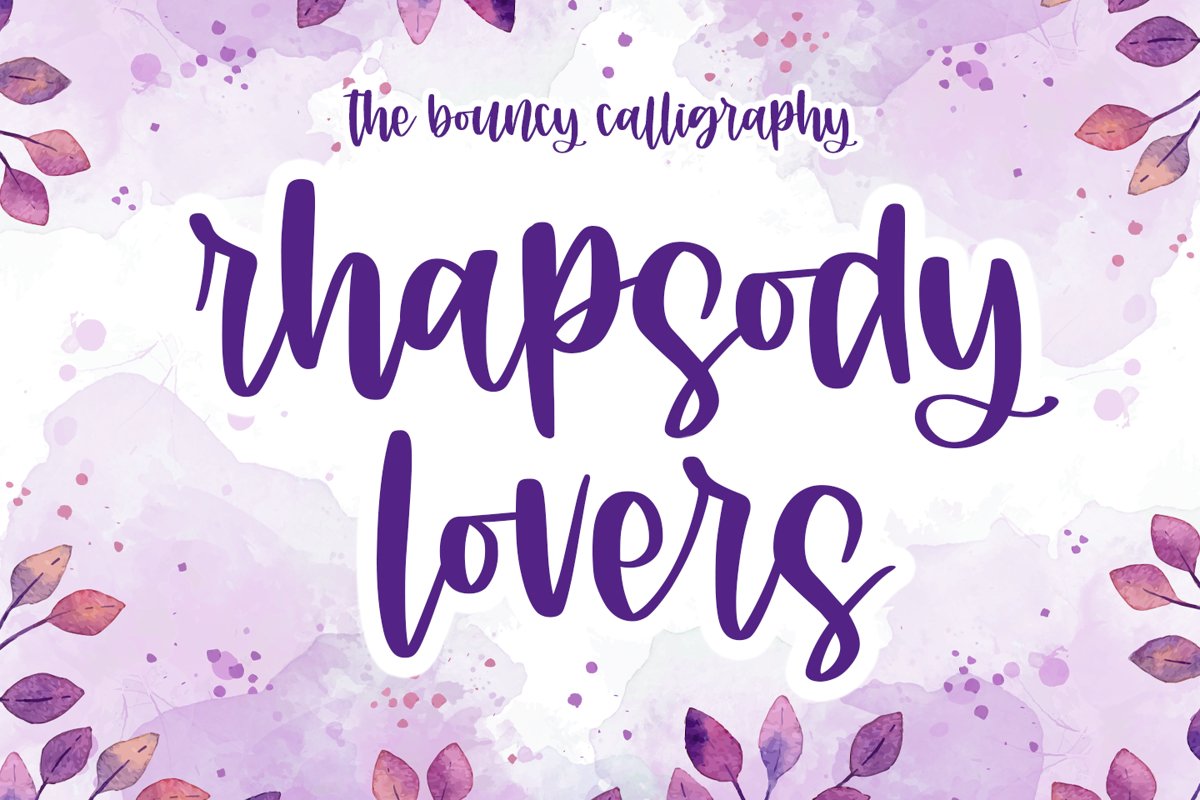
Rhapsody Lovers
rhapsody lovers
Rhapsody Lovers
-the bouncy calligraphy-
this font is great for quotes, branding, packaging, card, wedding invitation, and more
it came with some ligatures to make this font look natural.